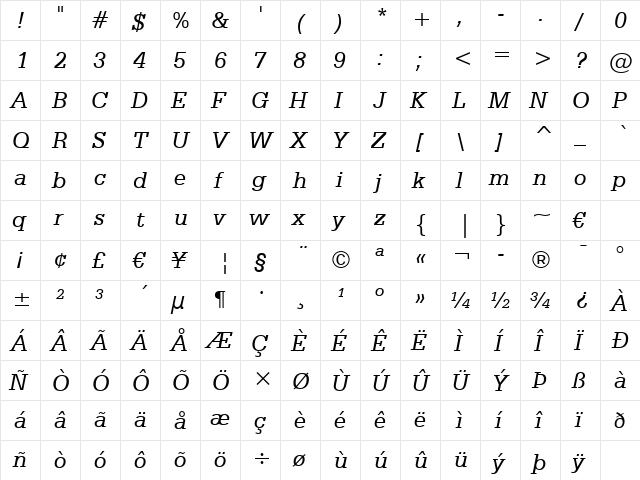
Serifa BT Italic Font Preview
Serifa BT Italic
Serifa BT Italic Font Details
Design Context for Serifa BT Typeface
Serifa BT carries the refined structure of traditional serif typography, with bracketed terminals and considered proportions that communicate credibility and craft. Its italic angle brings a sense of urgency and motion to the letterforms.
Pro Tip: Set Serifa BT with slightly loose tracking in headlines to let each letterform's detail read clearly at display sizes.